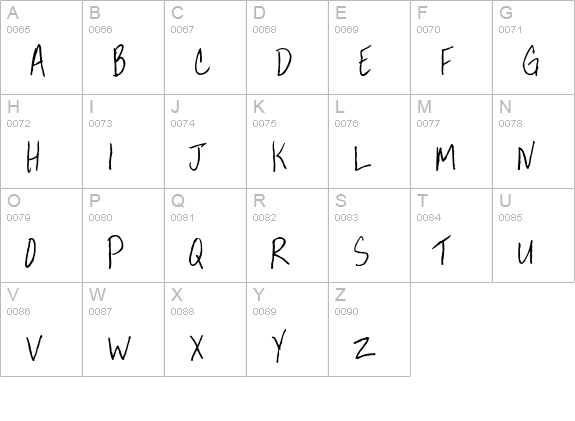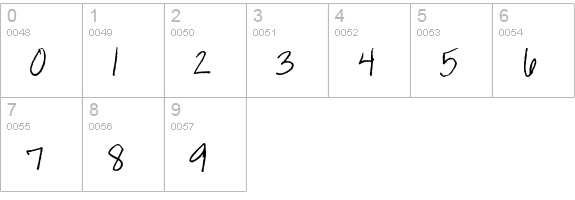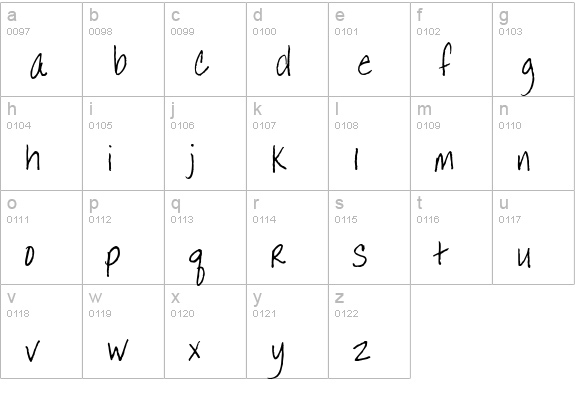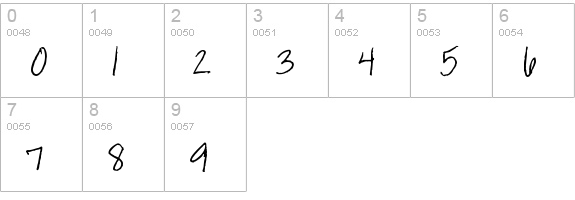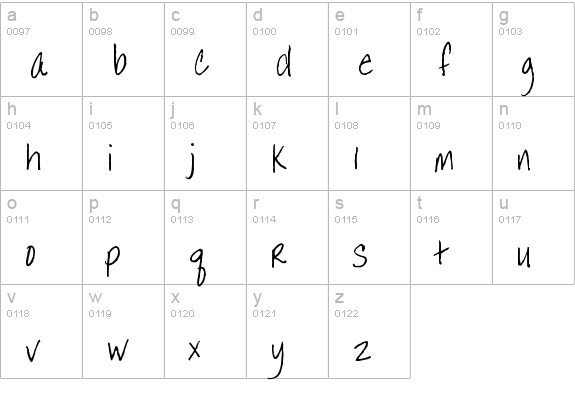
Annie BTN Font Details
Annie BTN font is a charming and versatile typeface that exudes a sense of elegance and sophistication. With its modern yet classic design, this font is perfect for a wide range of design projects, from branding to editorial layouts. Its clean lines and sleek curves make it easy to read while adding a touch of style to any text. Best of all, Annie BTN font is available for free download at FontsMarket.com. This means you can start using this beautiful font in your projects right away without any cost. Whether you're working on a personal project or a professional design, Annie BTN font is sure to elevate your work and make a lasting impression. Download it today and see for yourself the impact this font can have on your designs.